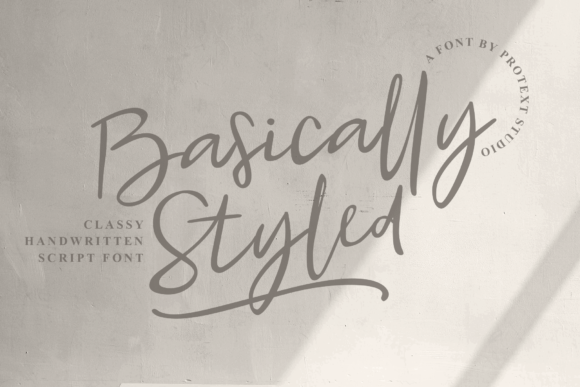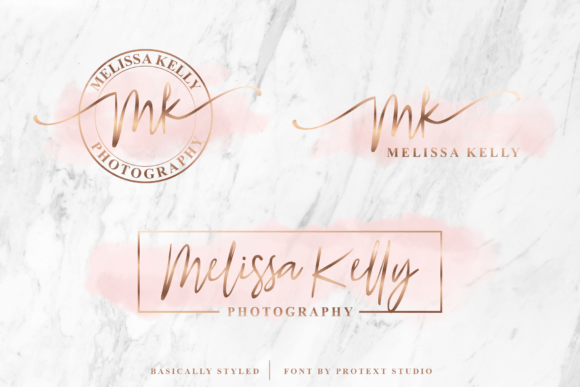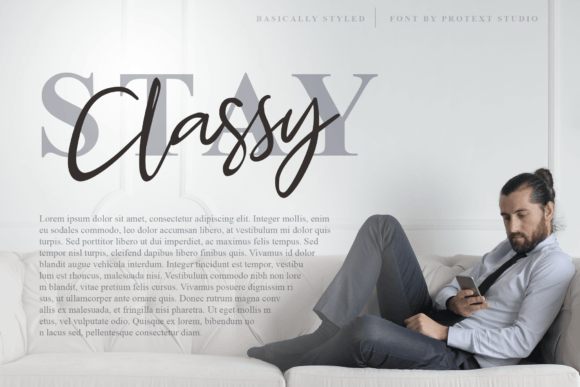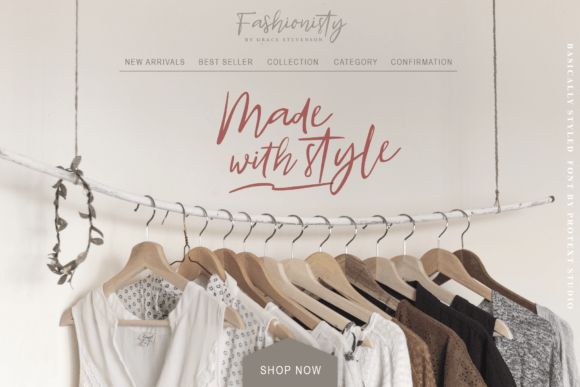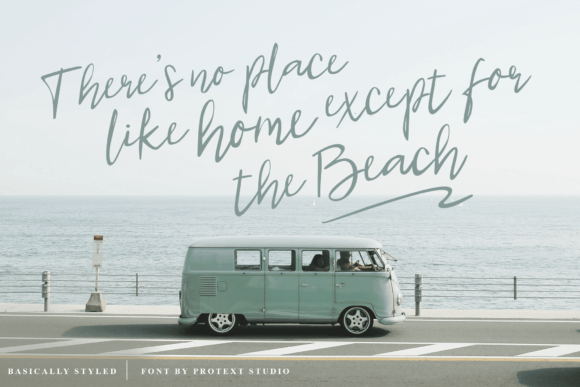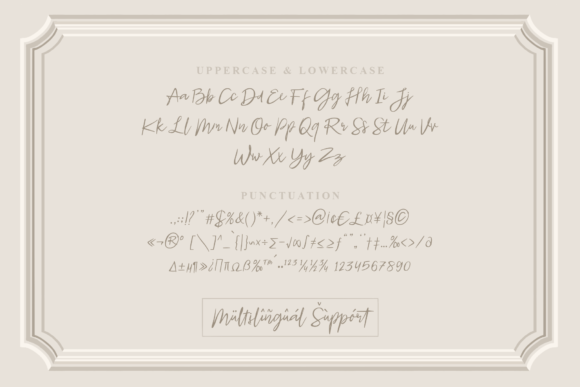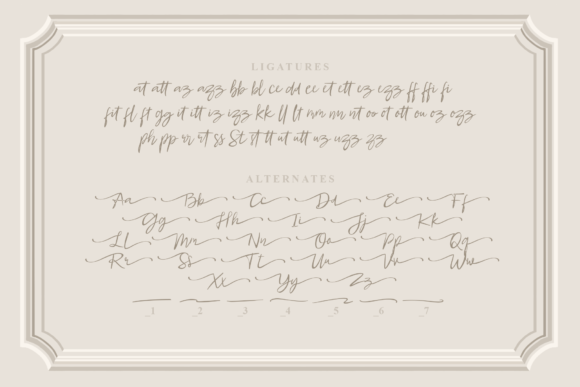
Basically Styled Font
“Basically Styled Font: Charming and Elegant Handwritten Beauty
Introducing Basically Styled, a font that effortlessly balances charm and elegance, creating a stunning and versatile typeface. This font is perfect for a wide range of design applications, including wedding invitations, thank-you cards, quotes, greeting cards, logos, business cards, merchandise, and any project that requires a touch of handwritten beauty.
More than just a font, Basically Styled is an artistic tool designed to bring a handwritten touch to your designs. Its carefully crafted characters exude charm and elegance, making it an ideal choice for projects that seek a perfect blend of style and authenticity.
The versatility of Basically Styled shines through in its ability to enhance the visual appeal of diverse projects. Whether you’re working on digital graphics or tangible items, Basically Styled adapts effortlessly to elevate the aesthetics of your designs.
For wedding invitations and thank-you cards, Basically Styled becomes a stylistic choice, adding a touch of individuality and elegant simplicity. The handwritten charm of the font is ideal for creating memorable and impactful pieces for special occasions.
In branding projects, Basically Styled serves as a signature element, contributing to memorable and sophisticated brand identities. Its charm and elegance add a personal and authentic touch to your business image.
Basically Styled’s versatility extends to various print materials, making it suitable for quotes, greeting cards, logos, and merchandise. The font’s unique characters enhance the overall aesthetics, creating a visually pleasing experience.
In conclusion, Basically Styled is more than just a font; it’s a design companion that brings charming and elegant handwritten beauty to your creative toolkit. Let Basically Styled be the brushstroke that enhances the beauty of your projects. Embrace the versatility and distinctive charm of Basically Styled, and watch as it transforms your ideas into visually enchanting experiences. Plus, with PUA encoding, accessing all the glyphs and swashes is a breeze, providing you with flexibility and ease in your design process.”